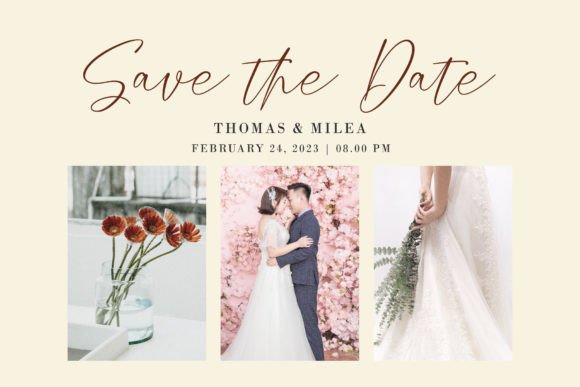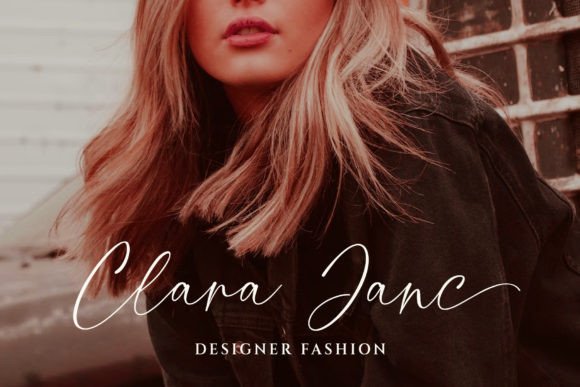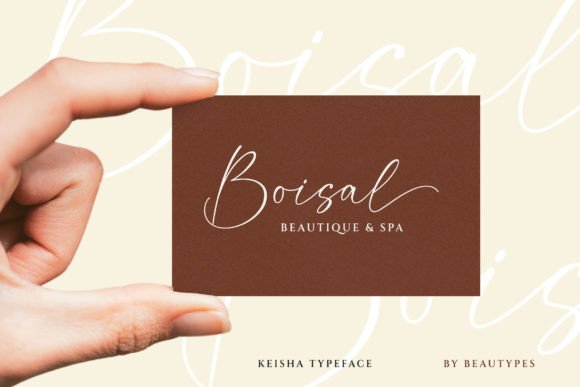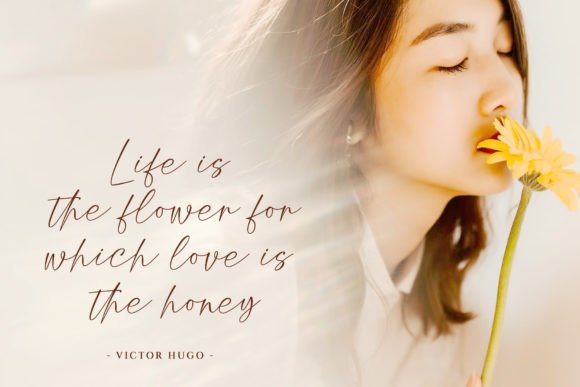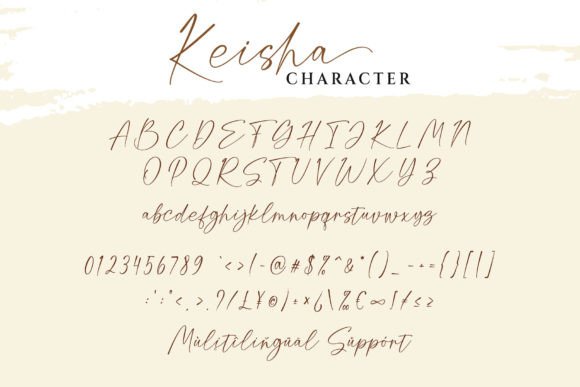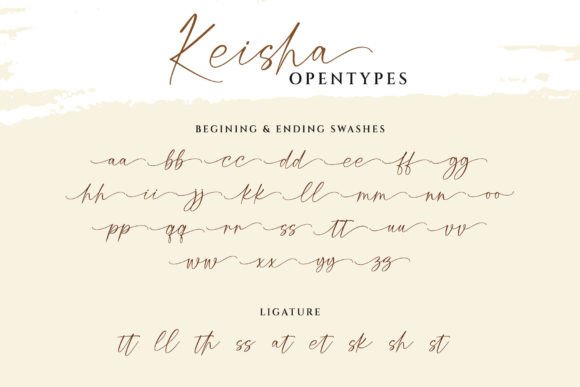
Discovering the Beauty of Keisha Font
There’s something magical about stumbling upon the perfect font for a creative project. It’s like the entire design comes alive, and every element falls into place. For designers, finding that elusive perfect font can be a game-changer, elevating a project from good to great. And that’s exactly what we’re about to explore – the enchanting world of the Keisha Font.
As a delicate, elegant, and flowing handwritten font, Keisha Font is a treasure trove of creative possibilities. With its beautiful and well-balanced characters, it’s the perfect match for a wide range of designs, from elegant invitations to whimsical children’s book illustrations. Whether you’re a seasoned pro or a design newbie, this high-quality font is sure to be a valuable addition to your design resource arsenal.
Keisha Font
- High-quality, elegant script font perfect for creative projects, offering a unique touch to any design.
- Unique characteristics include swashes, flourishes, and intricate details, making it perfect for wedding invitations, branding, and other high-end designs.
- Perfect for designers looking for a high-quality, elegant font that adds a touch of sophistication to their creative projects.
Honest Review: Keisha Font
I recently came across the Keisha Font and I must say, it’s been a game-changer for my creative projects. As a designer, I’m always on the lookout for high-quality fonts that can elevate my designs and communicate my message effectively.
- Limited font styles and weights may not be suitable for complex designs
- May not be as customizable as other fonts
Overall, I’m really impressed with the Keisha Font. It’s a solid design resource that can add a touch of elegance to any project. While it may have some limitations, it’s definitely worth checking out for any designer looking for a high-quality, free font.
Keisha Font is a free design resource ideal for creative projects that require a high-quality, modern font. With a transparent background, this font is versatile and easy to use in various applications.
Tips for Getting the Most Out of Keisha Font
To get the most out of Keisha Font, experiment with different font sizes, colors, and styles. You can also combine it with other design elements, such as images or icons, to create visually appealing designs.
Common Use Cases for Keisha Font
Keisha Font is suitable for various creative projects, including branding, advertising, and publishing. It’s also a great choice for personal projects, such as blog posts, social media graphics, or party invitations.